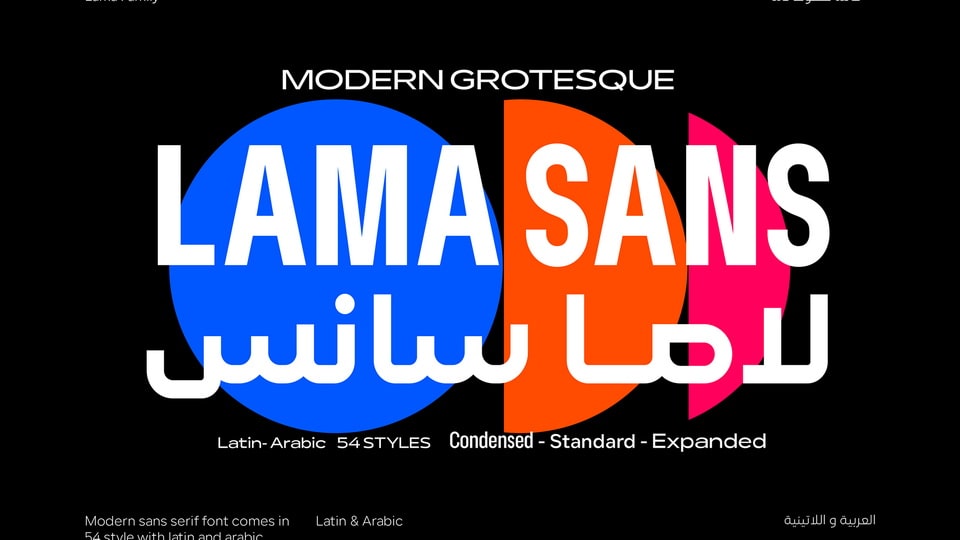
Lama Sans Font Family › Fontesk – Download Grátis
Download Lama Sans font, a modern and versatile sans serif typeface designed for both digital and print. Lama Sans font would be eligible to fit titles, body texts, and headlines in bold sizes and small spaces.
Designer: Baianat Type Design